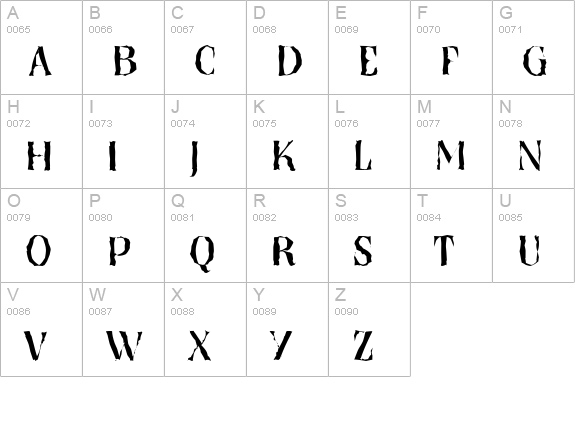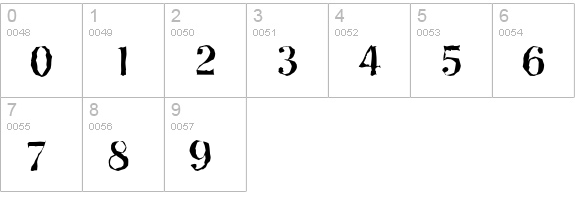
NashvilleRandom-Regular is the standard, neutral variant in the NashvilleRandom typeface family \xE2\x80\x94 well suited to general body text, paragraphs, and standard typographic work.
NashvilleRandom-Regular font is a playful and quirky typeface that exudes a carefree and energetic vibe. Its irregular and hand-drawn style adds a unique charm to any design project, making it perfect for creating eye-catching headlines, posters, and social media graphics. This font is freely available to download at FontsMarket.com, allowing designers and creatives to easily access and incorporate this fun and versatile typeface into their work. Add a touch of spontaneity and creativity to your designs with NashvilleRandom-Regular font.